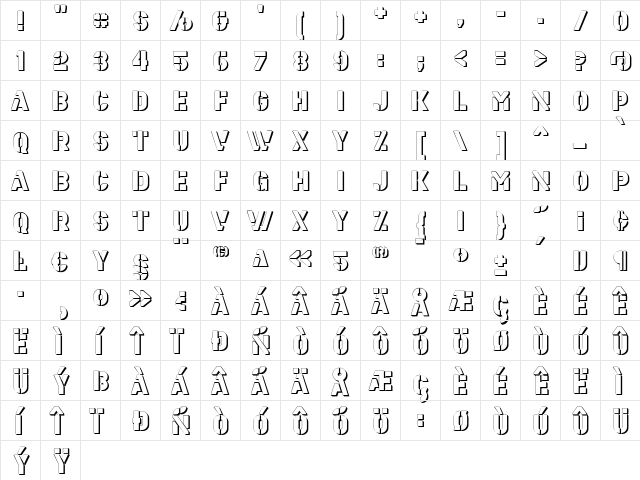
Estenceler Shadow
| Style | Shadow |
| Foundry | YouWorkForThem |
| Designer | Michael Cina |
Design Context for Estenceler Typeface
Estenceler is built around its visual character rather than neutral utility — its distinctive forms are designed to make an impression at display sizes.